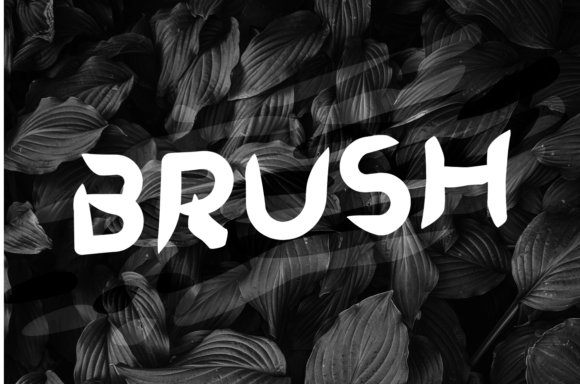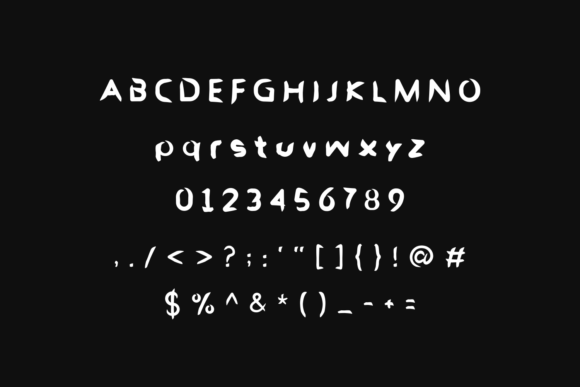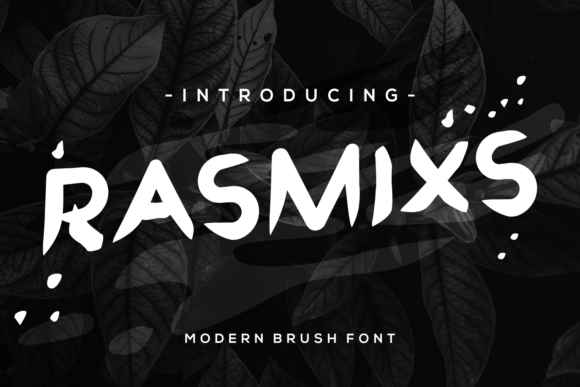
Introduction to Rasmixs Font
Rasmixs is a cool and unique display font.
This font is neatly crafted and highly detailed Whatever the topic, this font will be a wonderful asset to your font library, as it has the potential to enhance any creation.
Rasmixs Font offers exceptional quality and versatility, making it a valuable addition to your design toolkit. Whether you’re creating for personal projects or commercial use, Rasmixs Font delivers professional results.